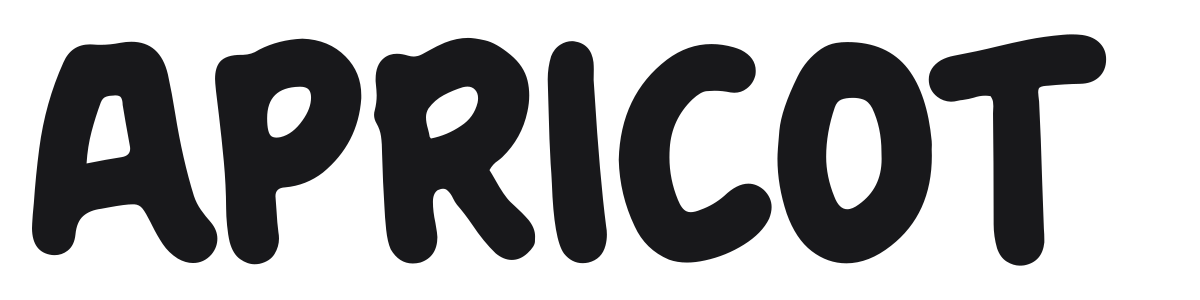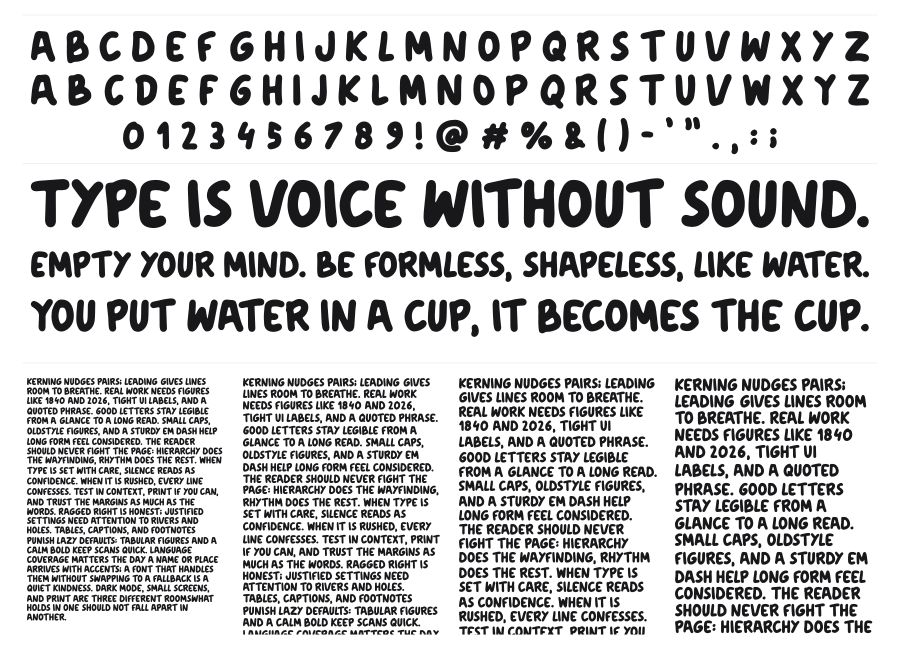
Apricot
by Hanna Bie
Apricot is a bold, bubbly rounded sans with thick strokes and a cheerful cartoon energy. Every character feels inflated and soft, giving it a natural home in children's content, food packaging, and fun-forward branding. It reads loudly and happily at display sizes.